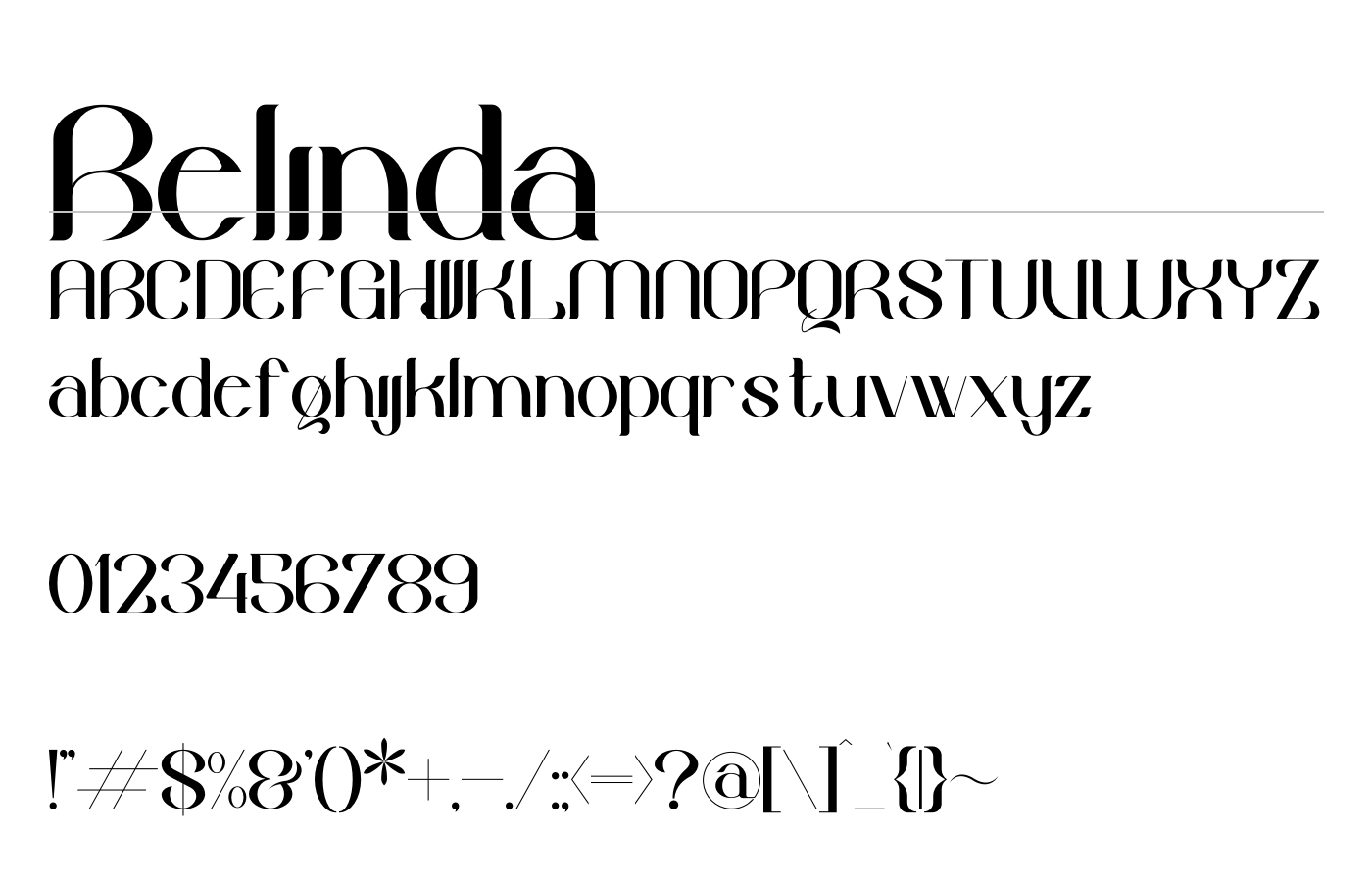
Belinda is a stylish serif font that combines high contrast strokes with elegant, elongated letterforms, creating a sophisticated and modern look. Its unique blend of thin, curved serifs and smooth, flowing details makes it ideal for fashion brands, luxury packaging, and editorial headlines, where a refined and artistic atmosphere is desired. This font’s distinctive character shapes and airy spacing give it a sense of grace and exclusivity, perfect for standout design projects.
Belinda Font